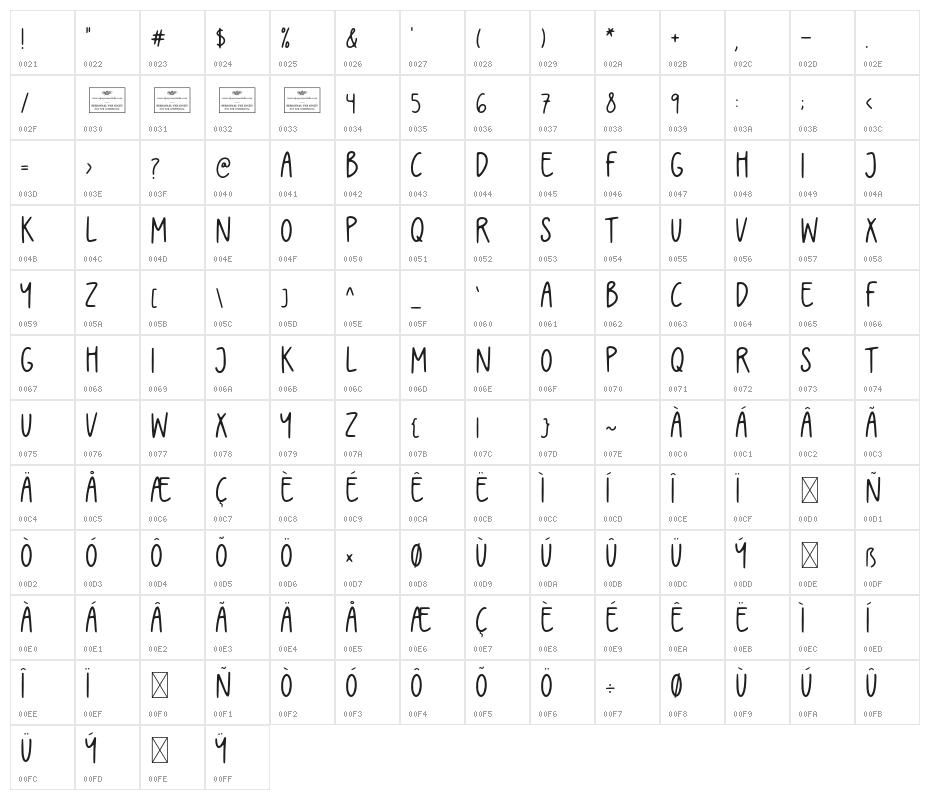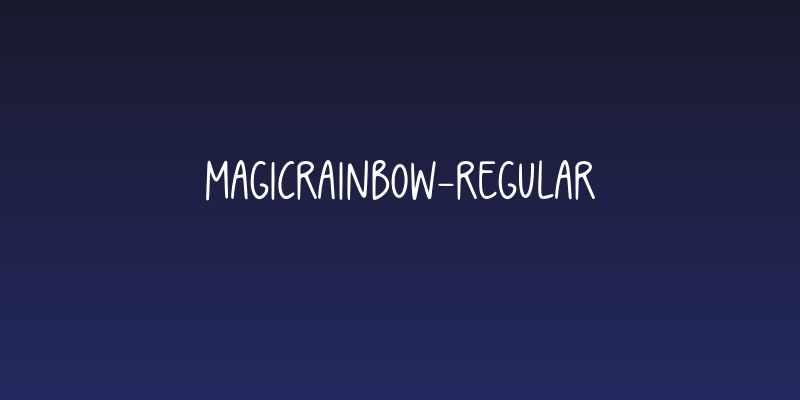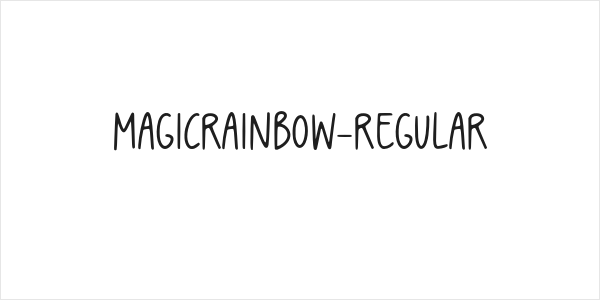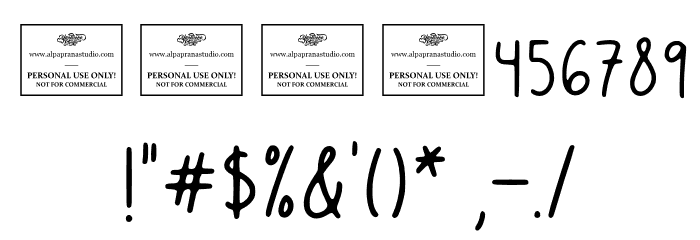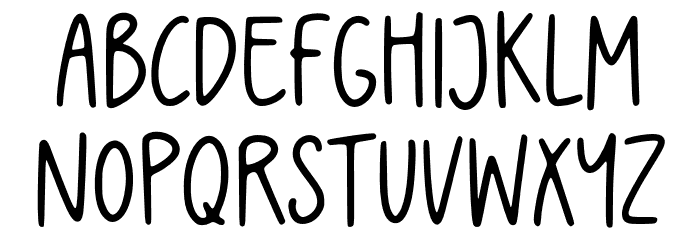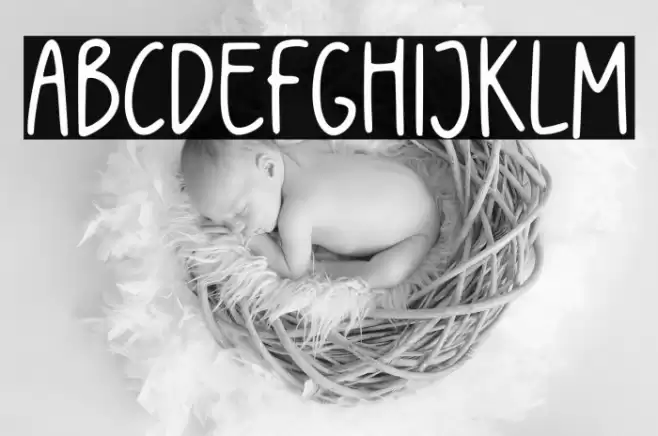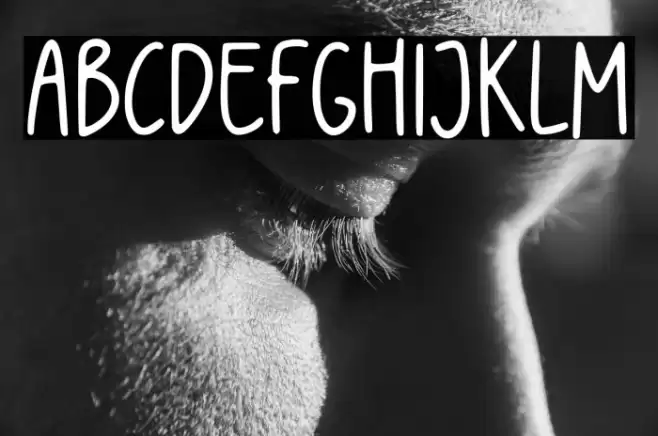
MagicRainbow-Regular Font
MagicRainbow-Regular Description
This font features a playful and whimsical handwritten style, characterized by its tall, narrow letters and smooth curves. The strokes are consistent in width, giving it a clean and uniform appearance. The uppercase and lowercase letters maintain a cohesive look, with rounded edges that add a friendly and approachable feel. The numbers and special characters are designed to match the overall style, ensuring versatility across different uses. This font is ideal for projects that require a personal touch, such as greeting cards, invitations, or playful branding.
| Proposed Projects | Ideal for greeting cards, invitations, playful branding, and personal projects. |